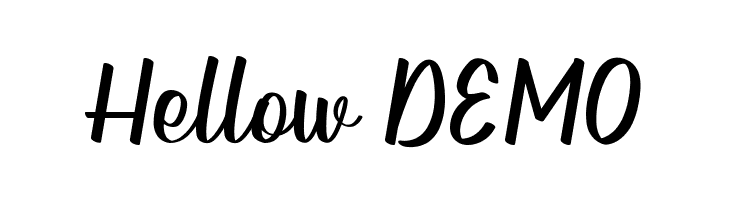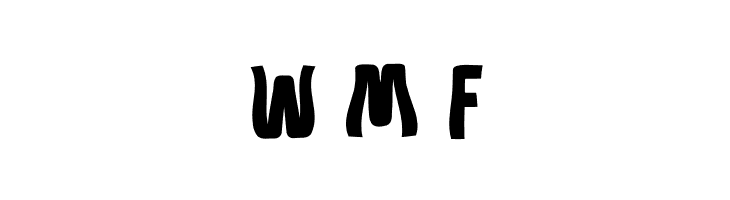
A bold, angular font with a futuristic, geometric design.
A bold, angular font with a modern, geometric style.
A bold, pixelated font with a retro digital aesthetic.
A bold, angular font with a futuristic and aggressive style.
A bold, geometric font with sharp angles and a futuristic style.
A bold, geometric font with a strong, modern presence.
A bold, stencil-style font with a strong, industrial look.
A bold, geometric font with a futuristic and industrial aesthetic.
A bold, geometric font with sharp angles and a futuristic style.
A bold, condensed font with a modern and geometric style.
A geometric, grid-based font with a modern and technical appearance.
A pixelated, blocky font with a retro digital aesthetic.
A bold, geometric font with angular shapes and a modern, futuristic style.
A bold, handwritten-style font with dynamic, brush-like strokes.
A bold, decorative font with geometric patterns and strong visual impact.
A bold, geometric font with a modern and industrial style.
A modern, geometric font with angular and dynamic characters.
A bold, geometric font with a futuristic and dynamic style.
A bold, geometric font with sharp angles and a 3D shadow effect.
A bold, angular font with a futuristic and edgy design.
A bold, rounded, and modern font with a playful geometric style.
A bold, italicized font with sharp, angular edges and a futuristic look.
A bold, angular font with a dynamic and energetic style.
A bold, angular, and futuristic font with a strong digital aesthetic.
A bold, eclectic font with characters styled like brand logos.
A bold, geometric font with a futuristic and industrial style.
A bold, geometric font with a pixelated, digital aesthetic.
A bold, modern font with a geometric and condensed design.